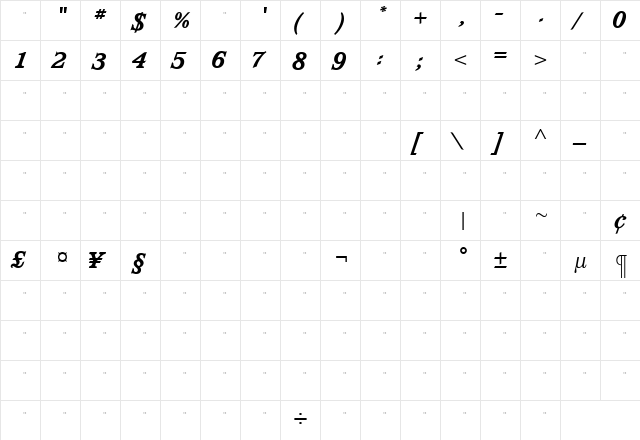
WaverlyExtraBoldItalicTab Roman Font Preview
Design Context for WaverlyExtraBoldItalicTab Typeface
WaverlyExtraBoldItalicTab takes a measured approach to typography — its balanced proportions and neutral character make it a reliable workhorse for both digital and print work. Its italic angle brings a sense of urgency and motion to the letterforms. The heavy weight commands attention and anchors typographic hierarchies.